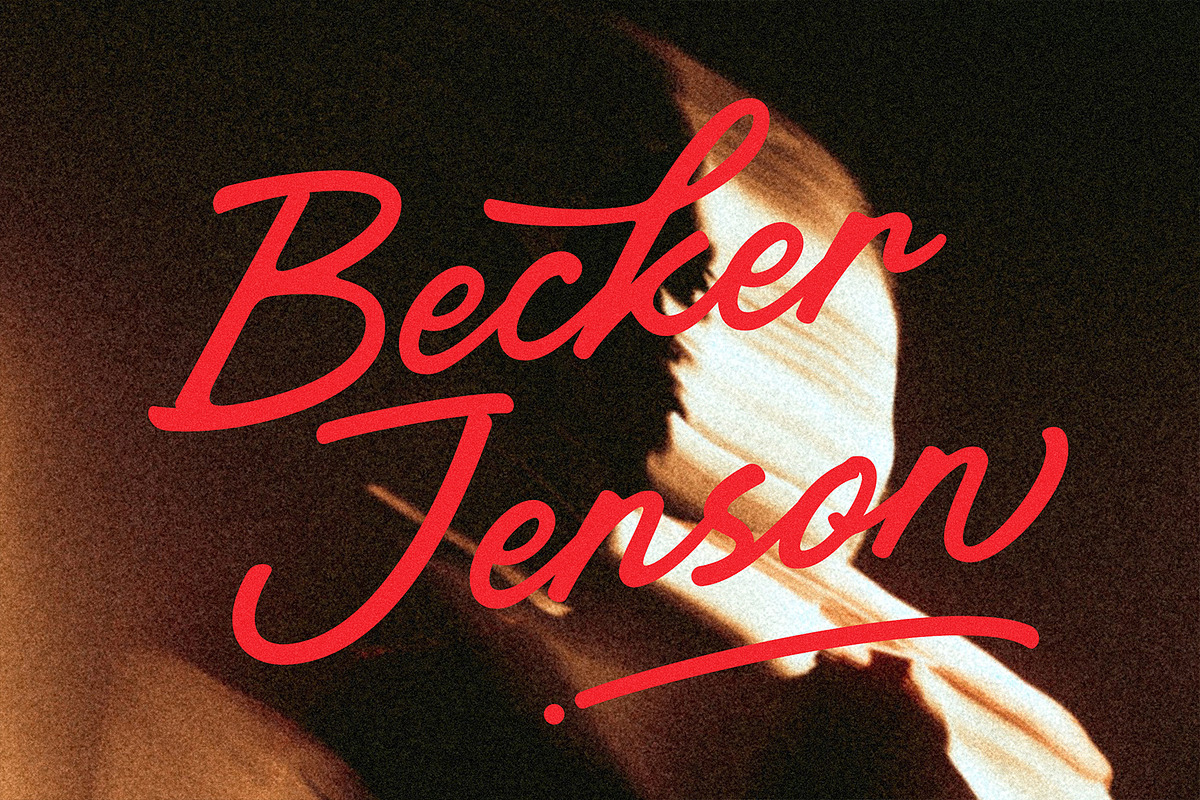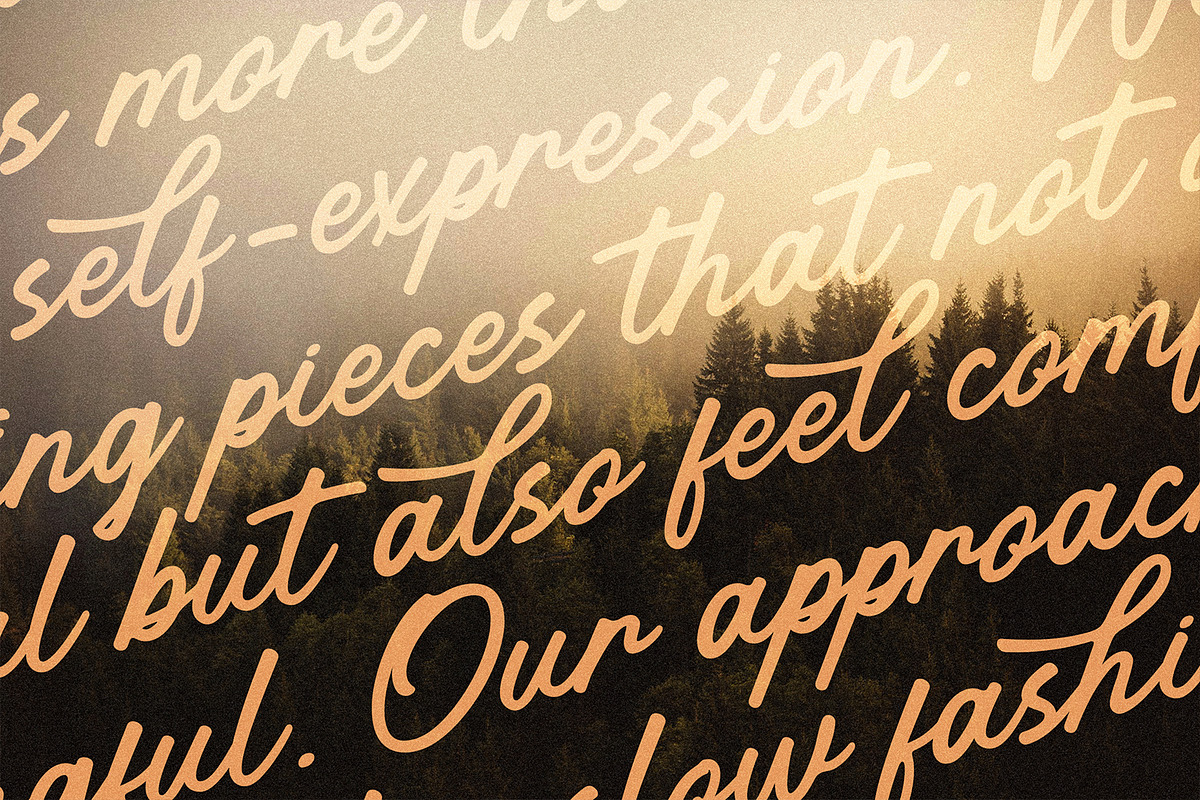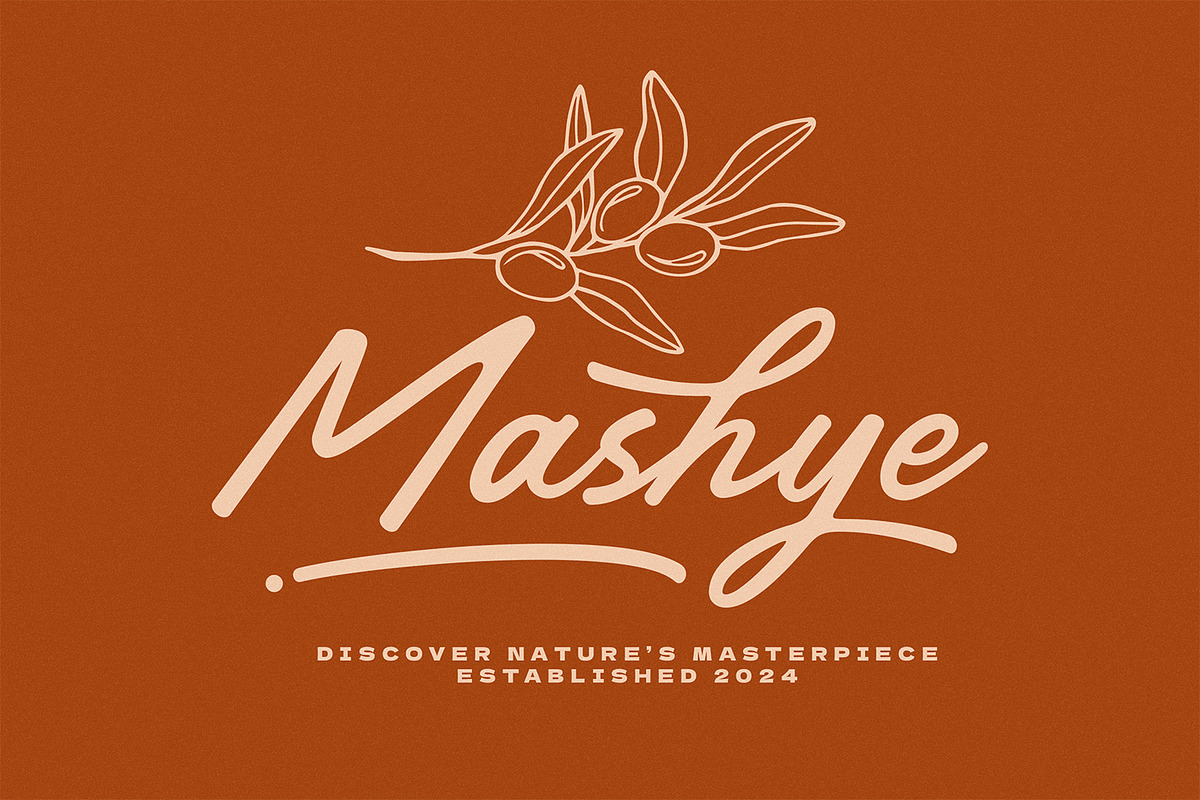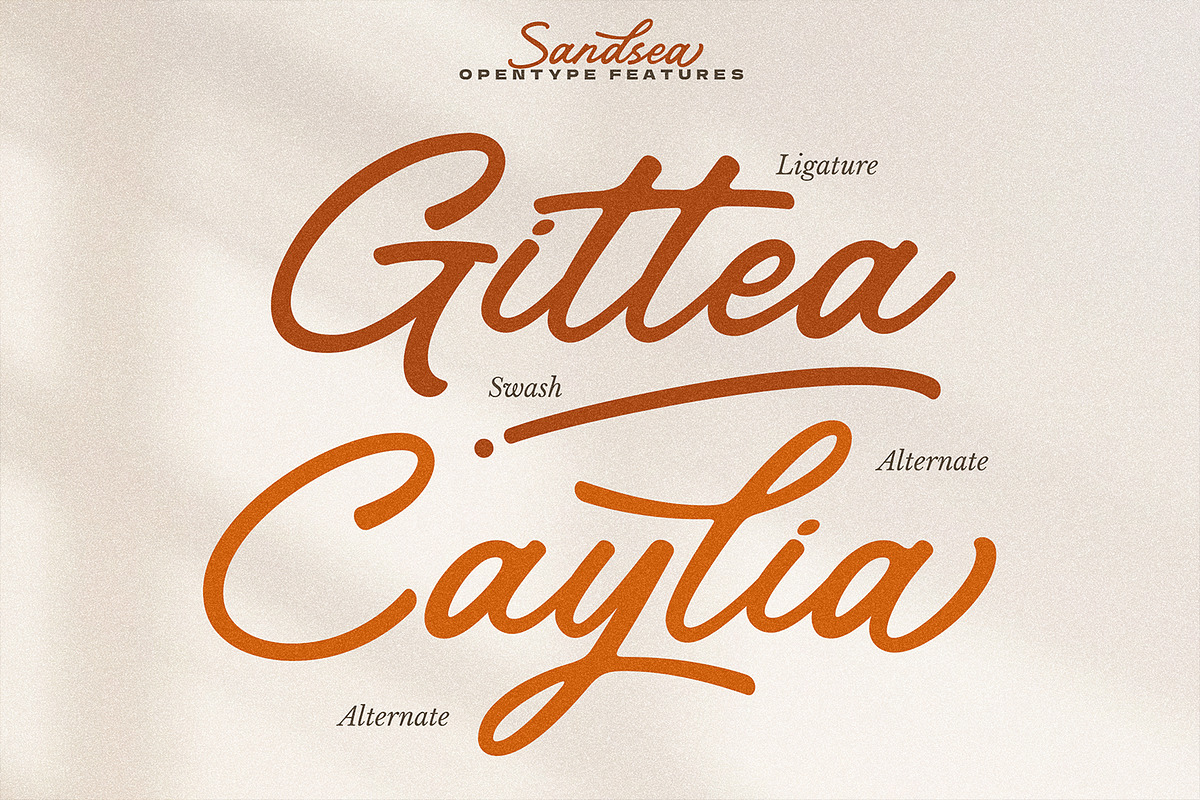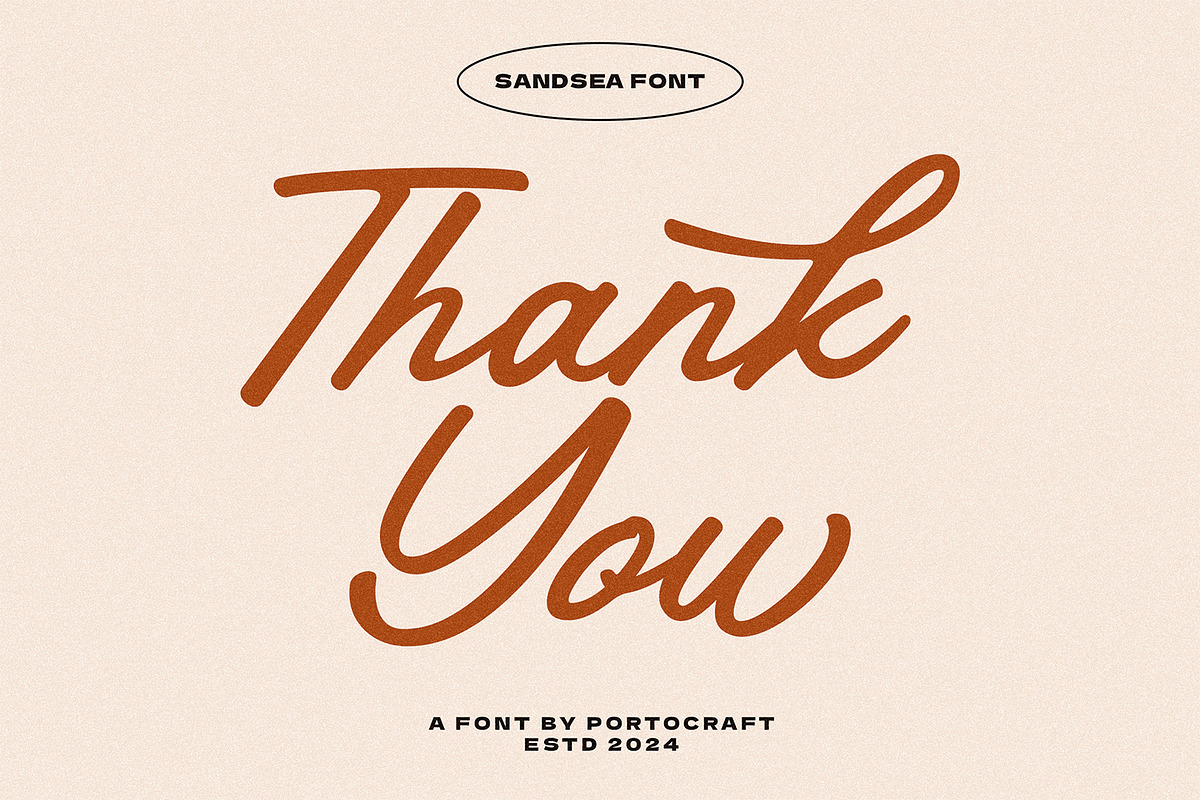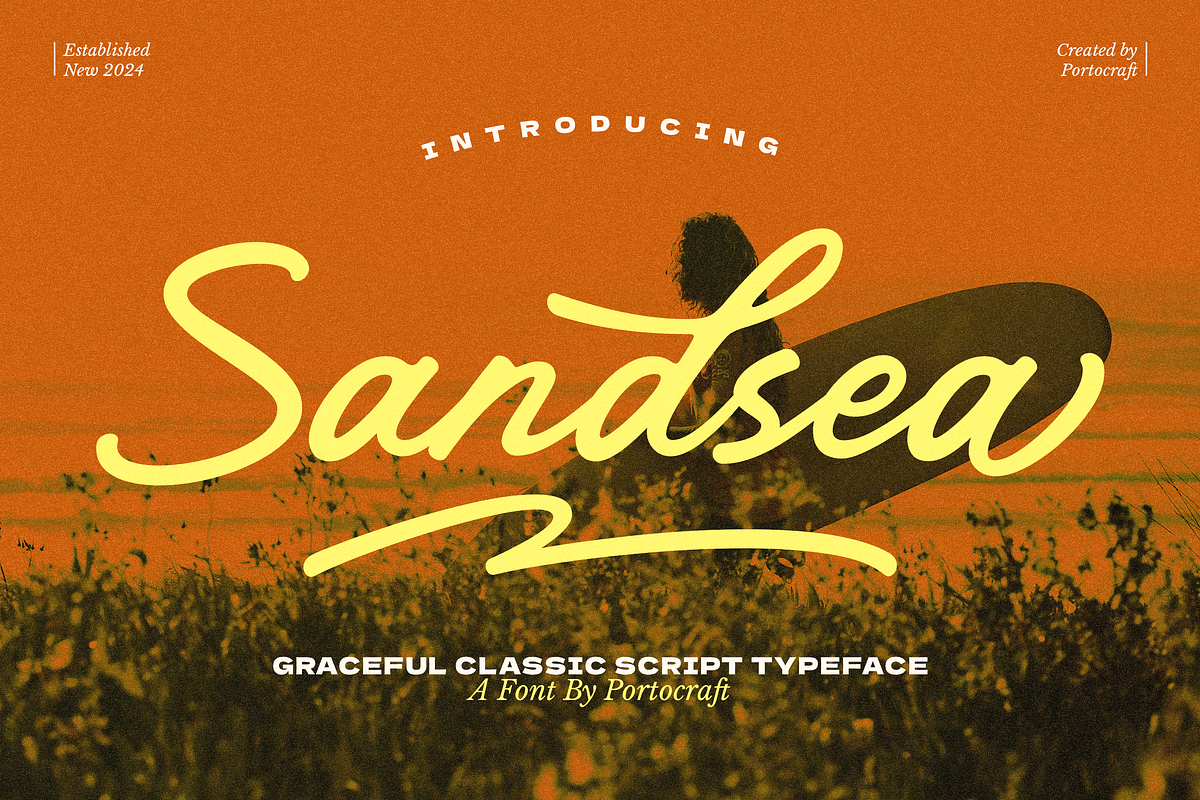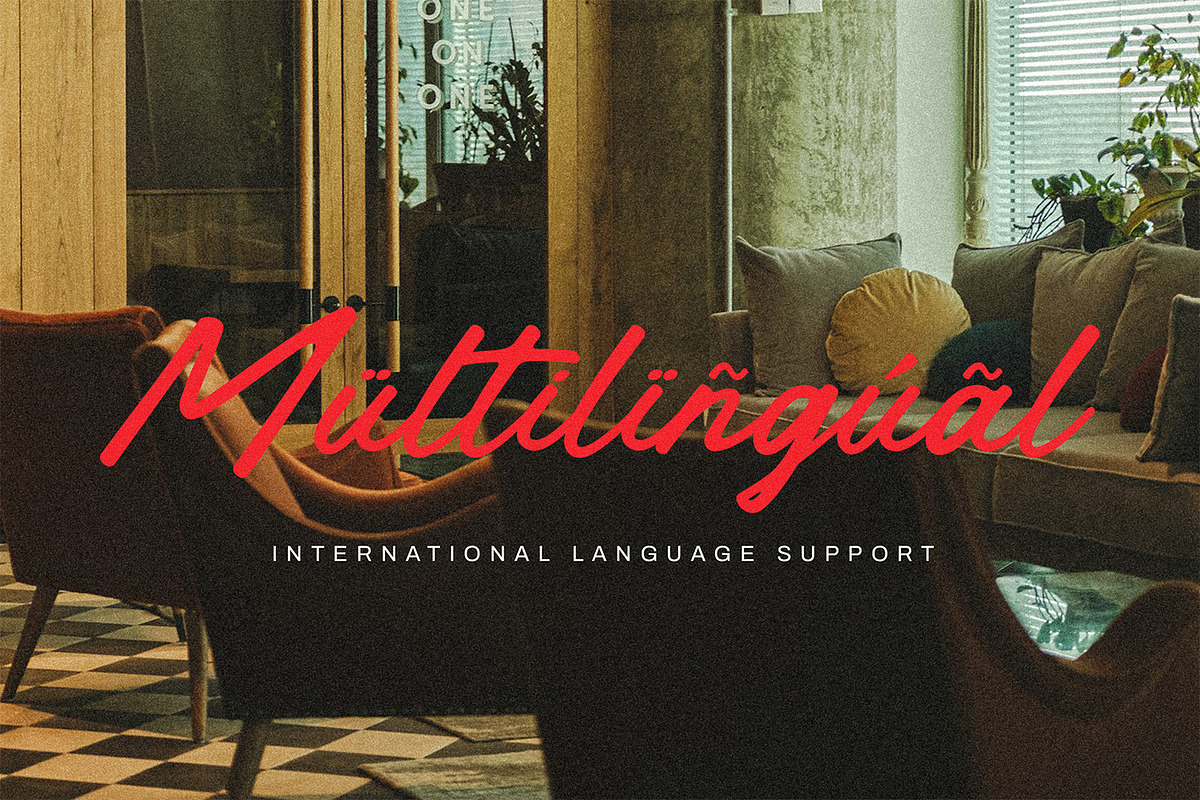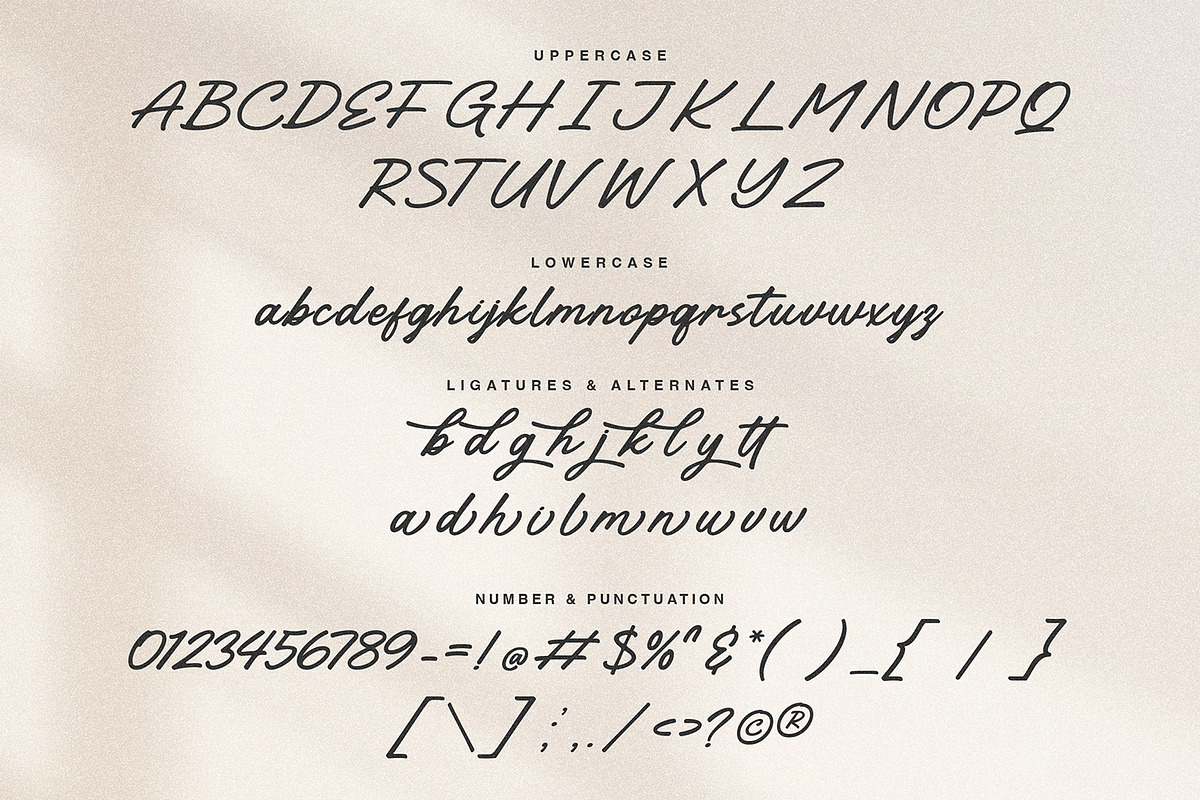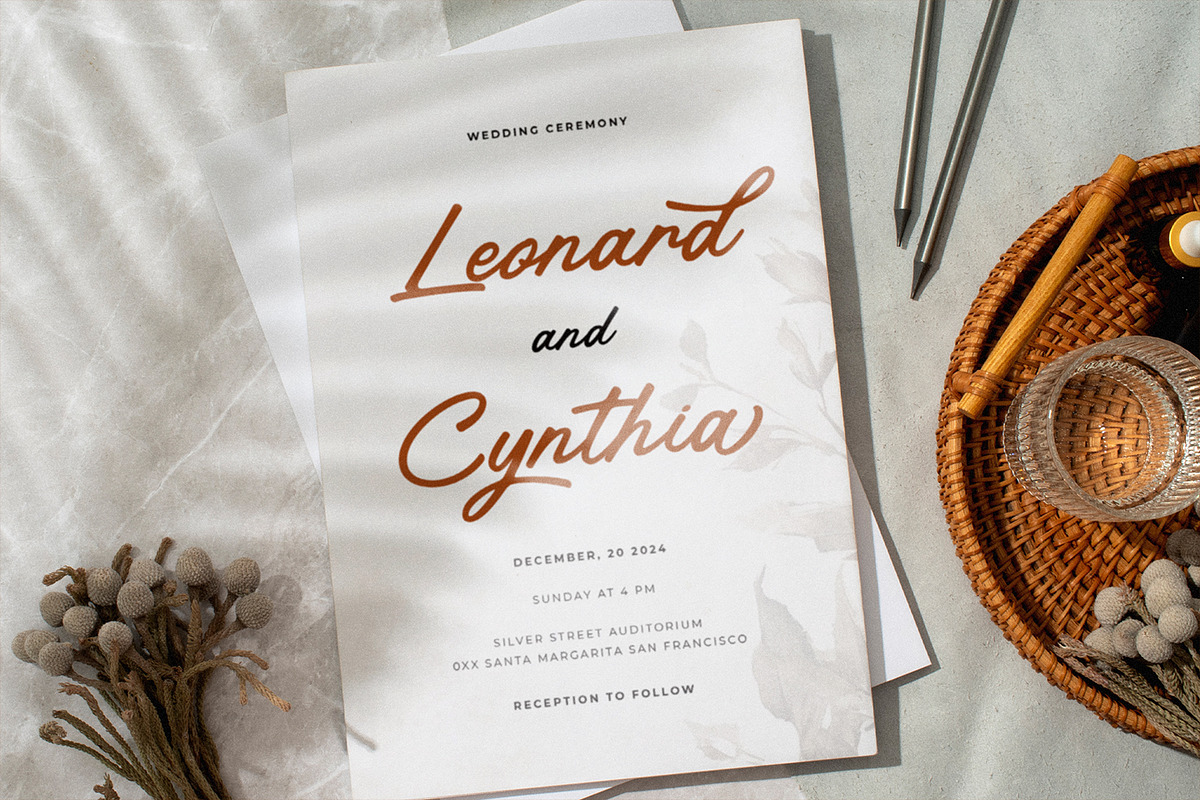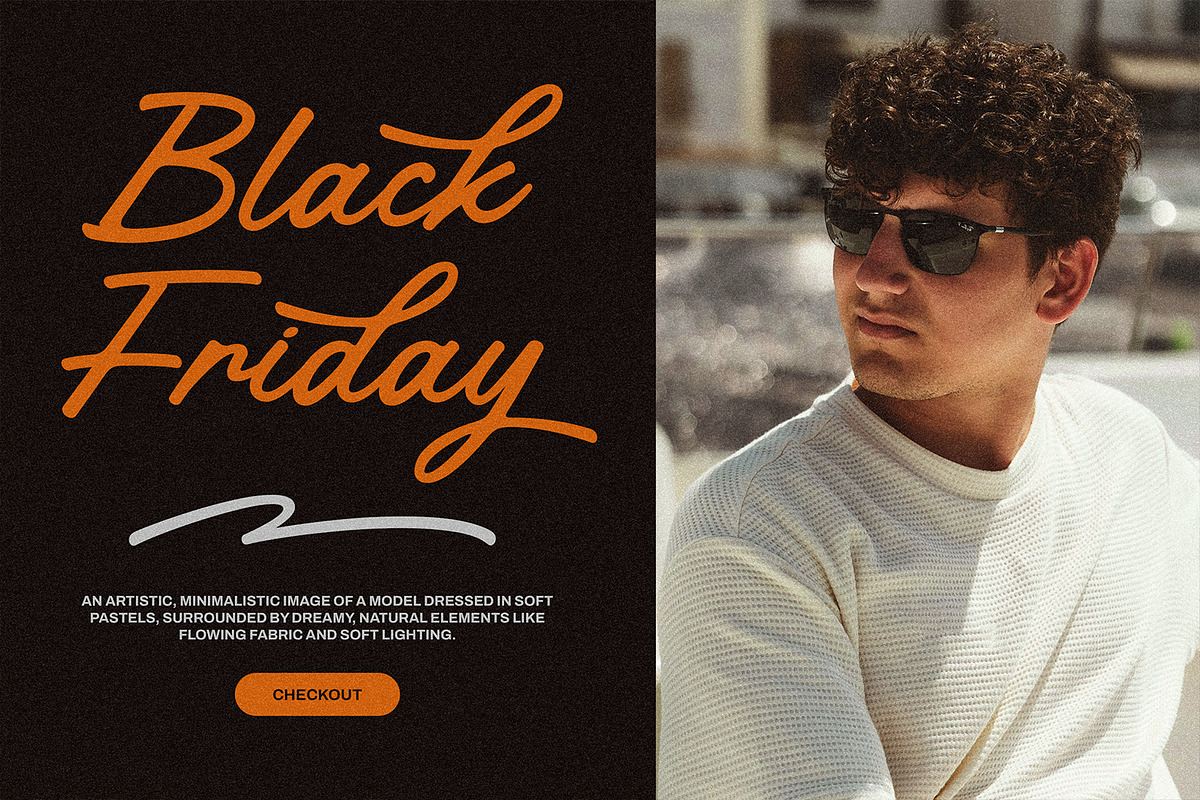
Sandsea Graceful Classic Script
Florence Vintage Sans Serif is a stylish font It has both modern and retro look. Comes with alternatives and ligatures, helps to create stunning logos, quotes, posts, blog posts. branding projects, magazine imagery, wedding invitations, and much more.
- Unique Letterforms